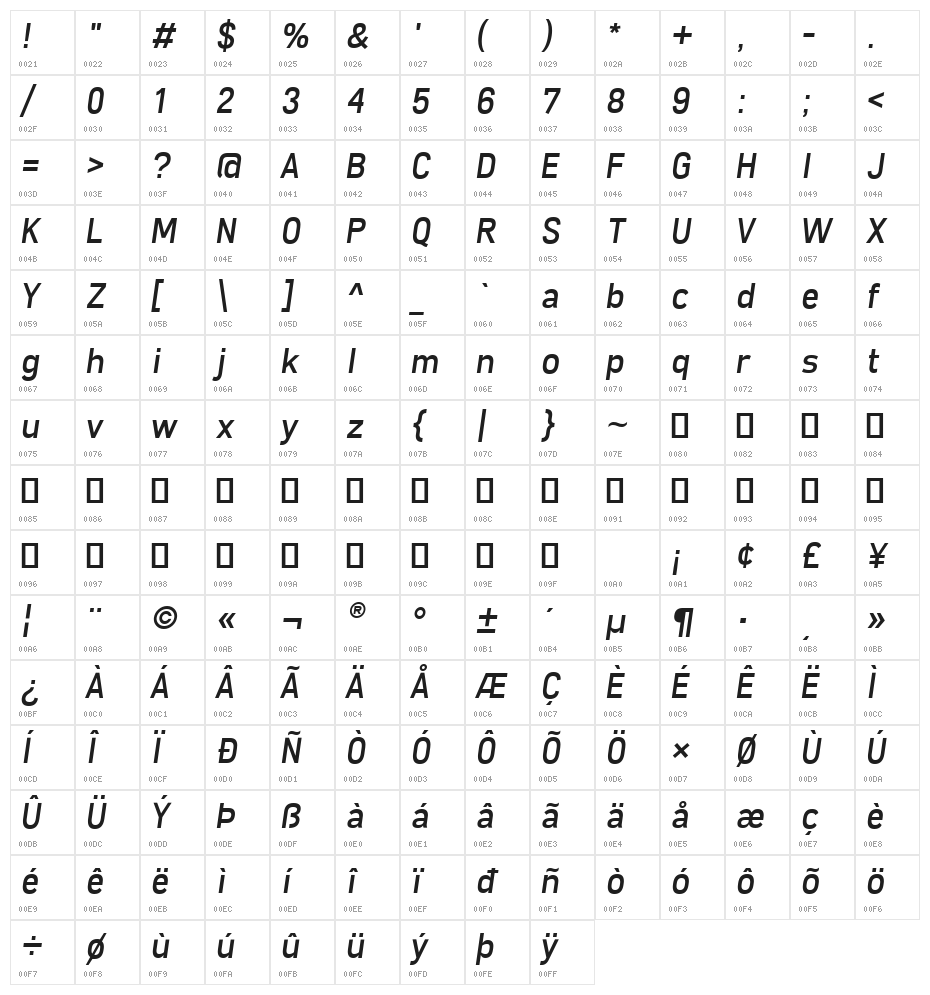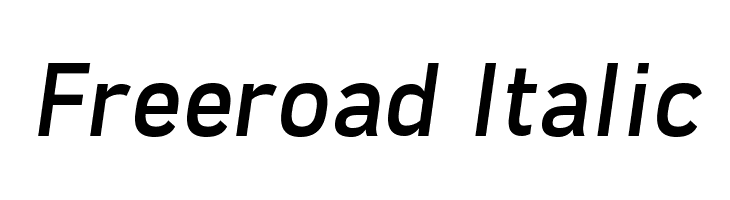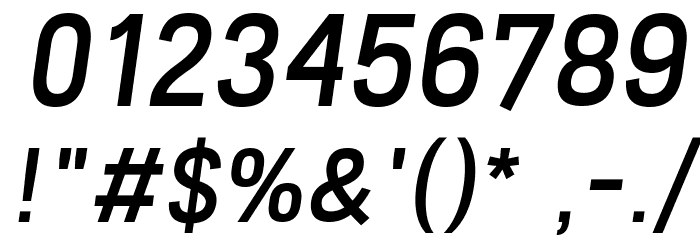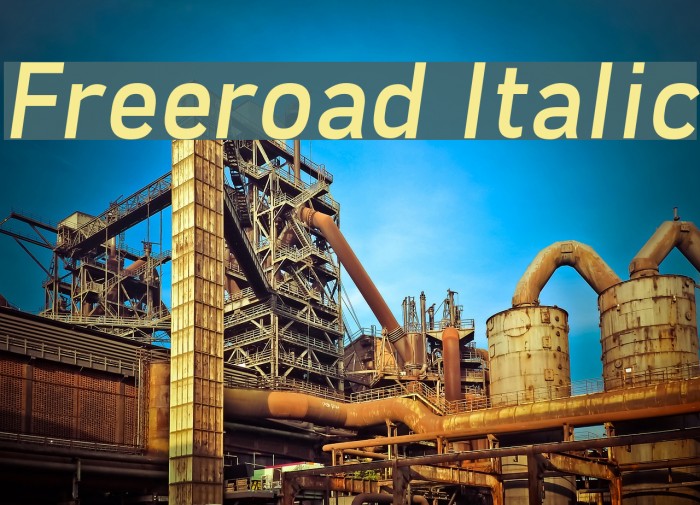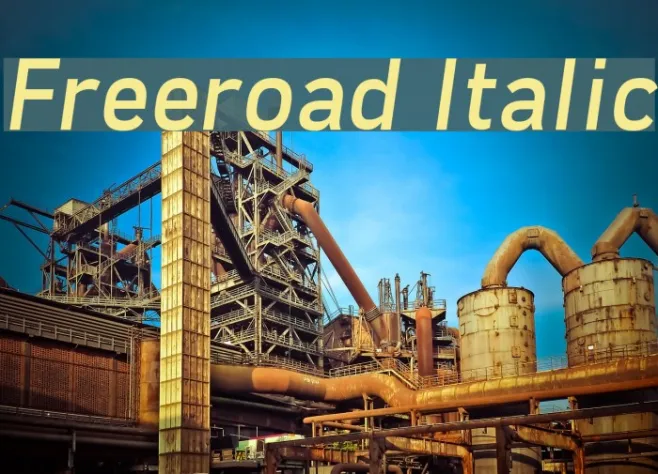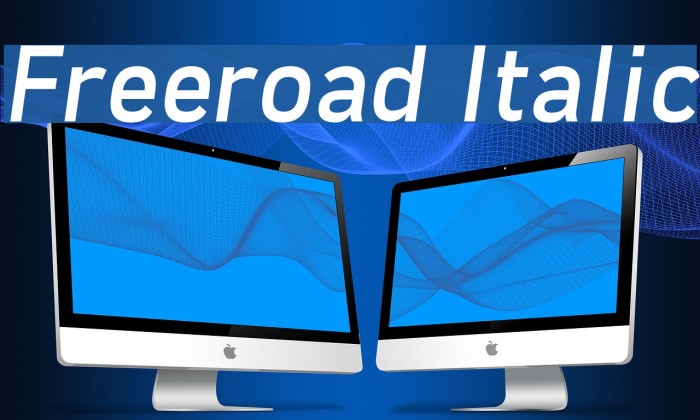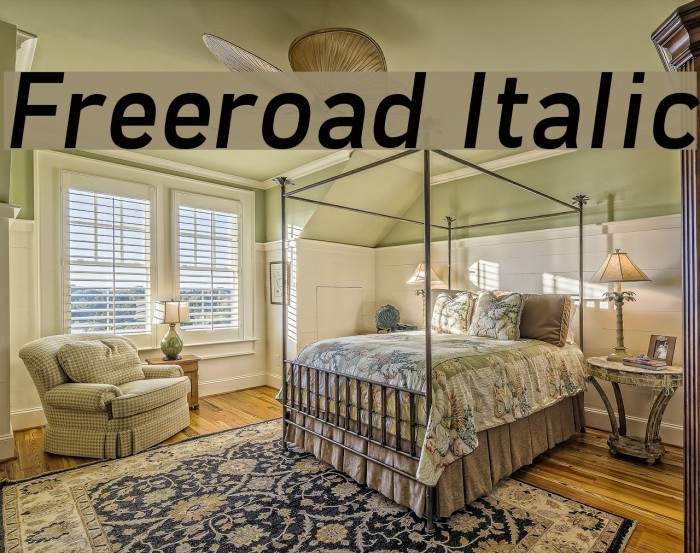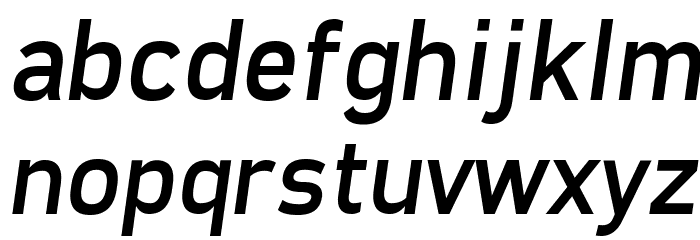
Freeroad Italic Font
Freeroad Italic Description
This font exhibits a sleek and modern italic style, characterized by its clean lines and slightly slanted letters. The uppercase and lowercase letters maintain a consistent design, with smooth curves and sharp edges that enhance readability. The numerals are well-proportioned, aligning seamlessly with the alphabetic characters. Special characters are distinct and clear, ensuring versatility in various applications. The overall appearance is professional and contemporary, making it suitable for both digital and print media.
| Proposed Projects | Ideal for branding projects, modern website headers, digital advertisements, and editorial design. |